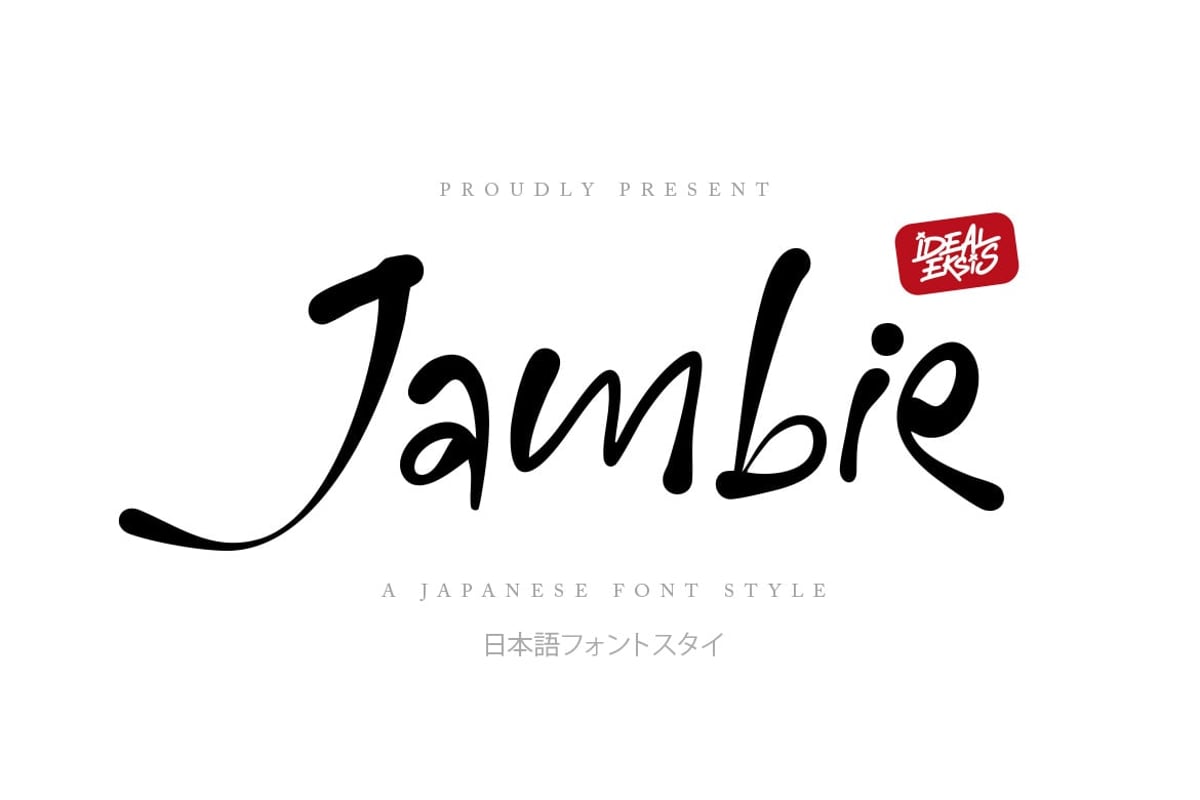
Jambie - Japanese Font
Bring authentic Japanese-inspired elegance to your designs with this dynamic brush-style script font.
Jambie features fluid, brush-like strokes and organic letterforms that capture the essence of traditional Japanese calligraphy while maintaining modern versatility. Perfect for branding, logos, and creative projects that need an authentic cultural touch.
- Uppercase
- Lowercase
- Alternate characters
- Numerals
- Punctuation